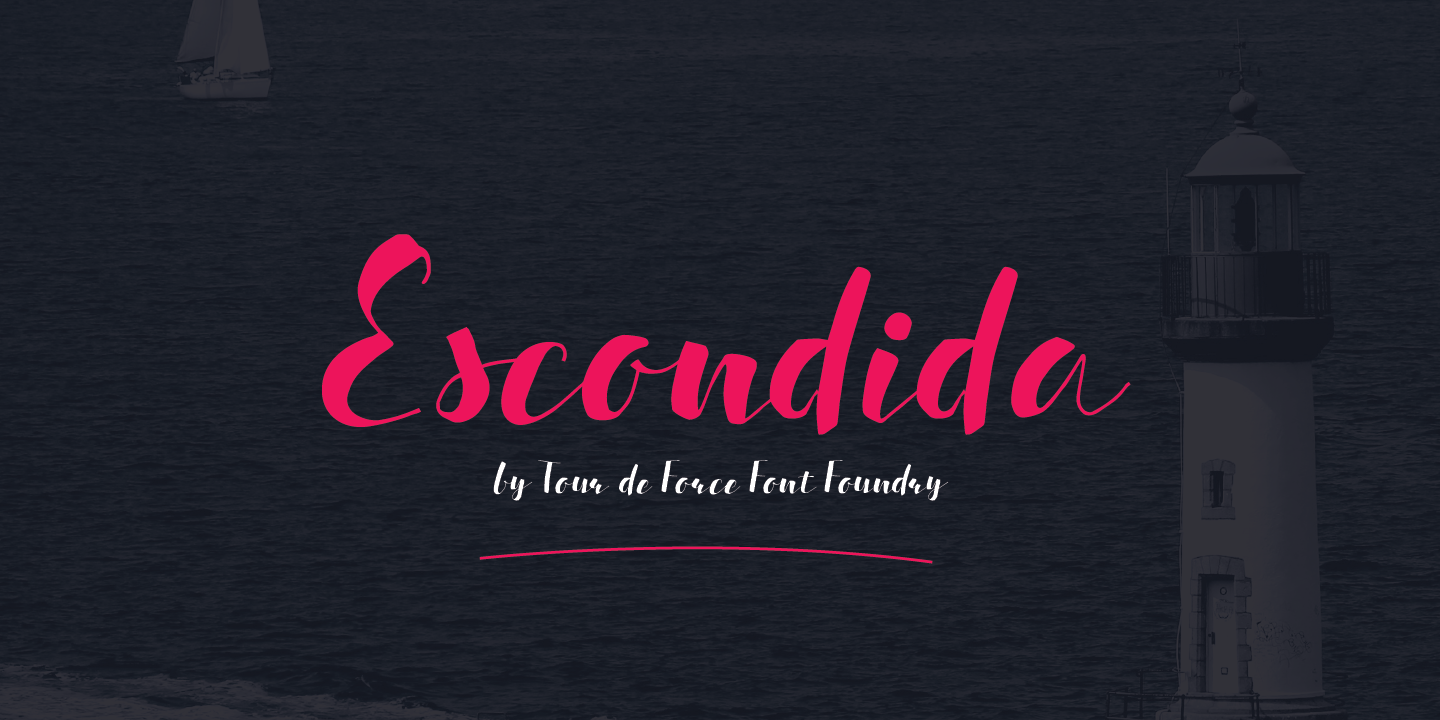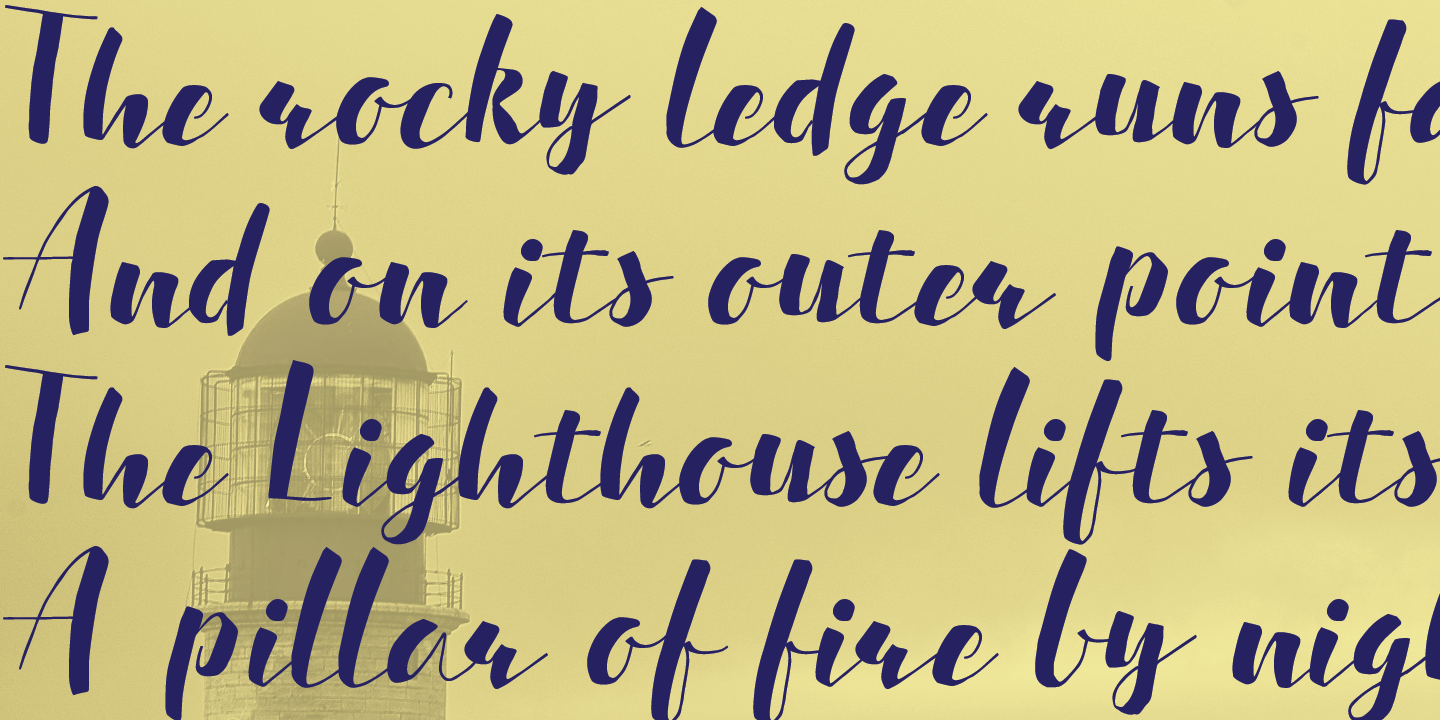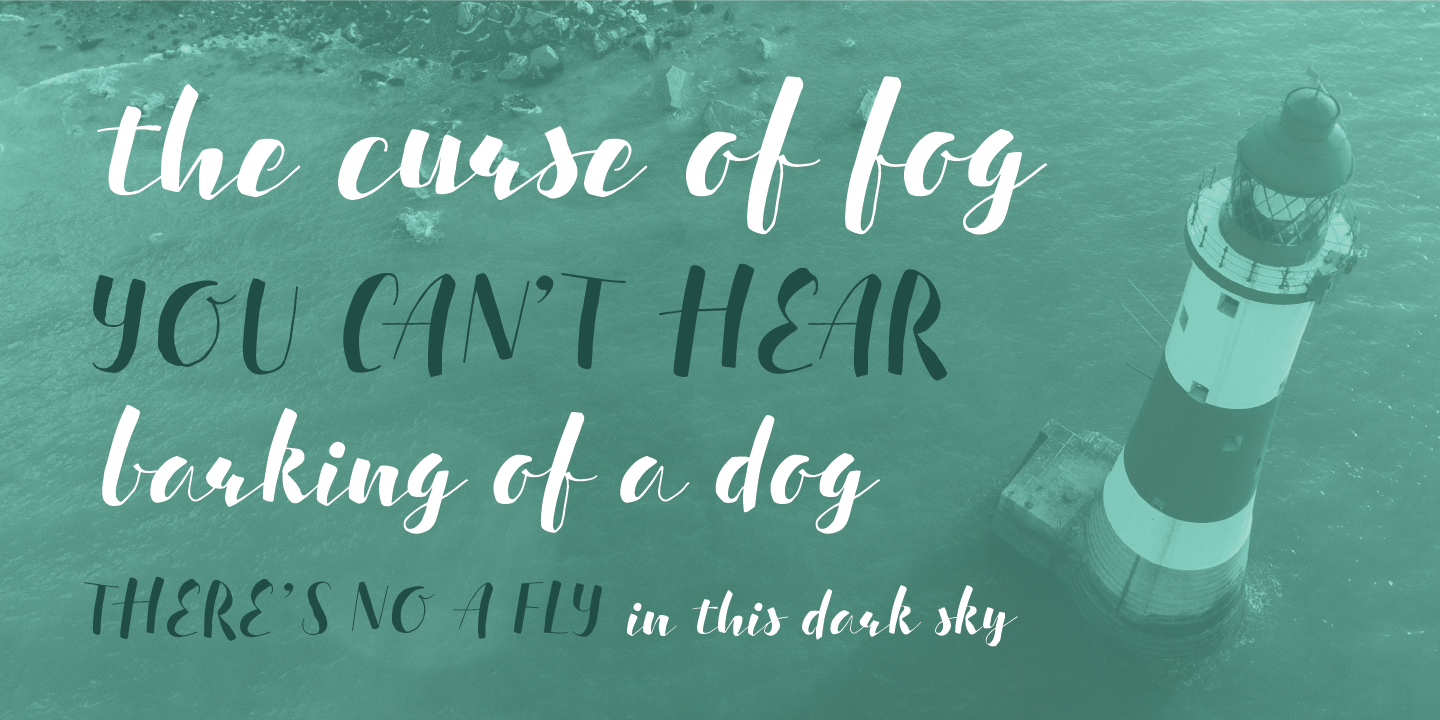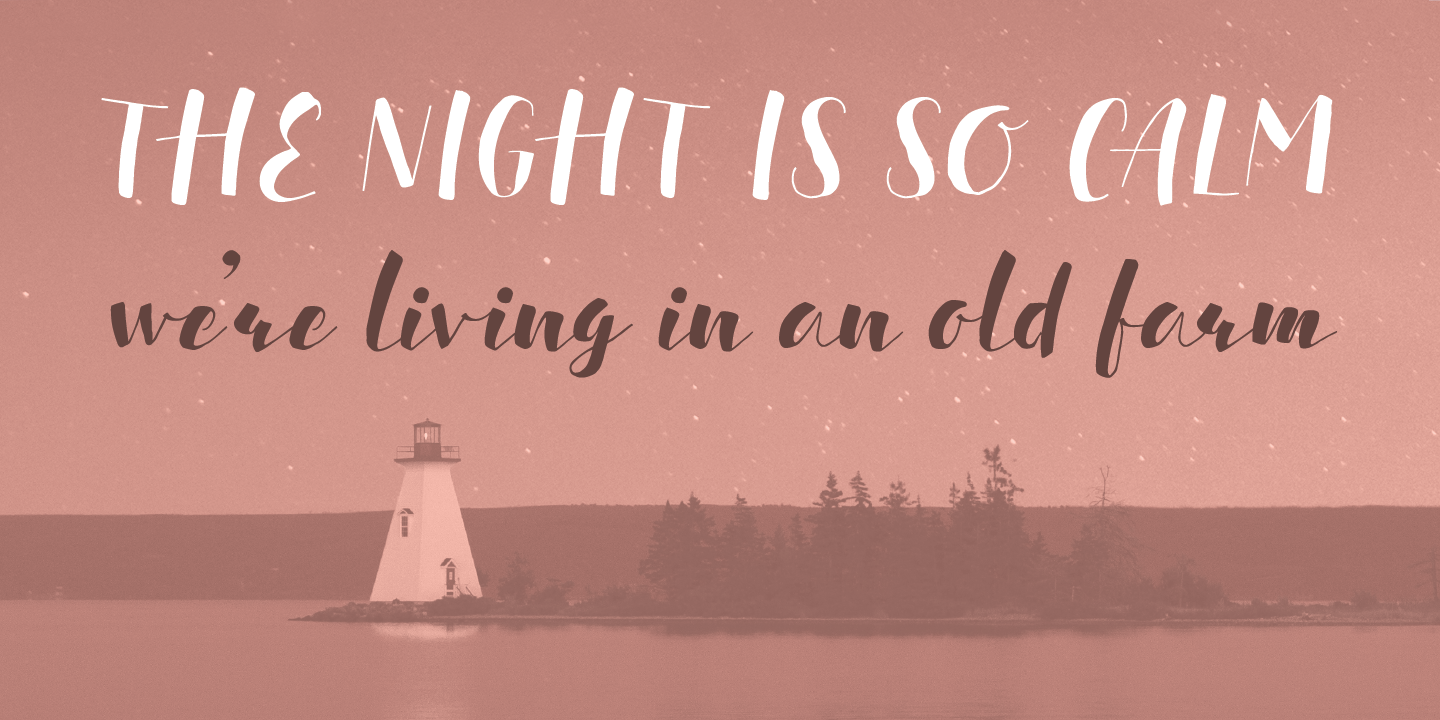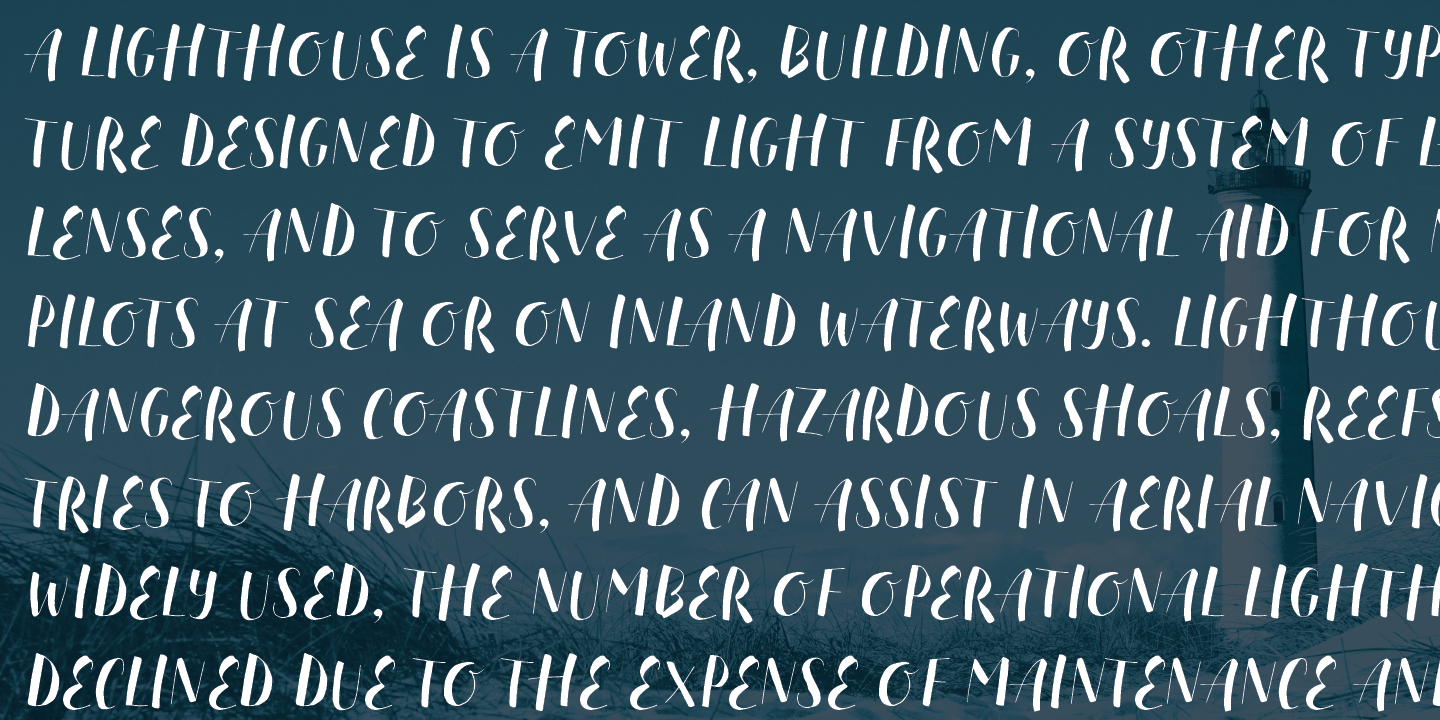
Simple, elegant and high contrasted typeface called Escondida simply fits into all design projects. Contains 390 glyphs and among them you'll find 22 ligatures as well.